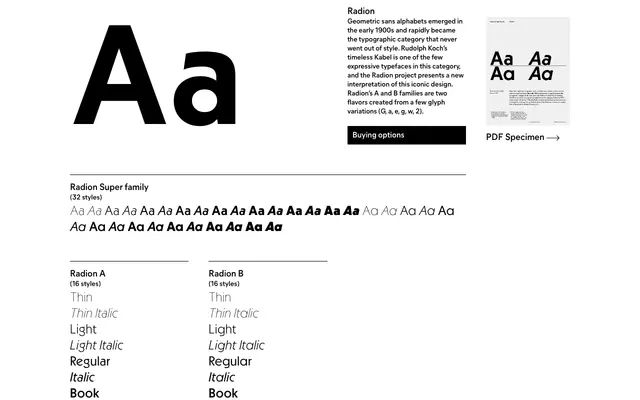
Radion specimen from General Type Studio
A 32-style geometric sans superfamily split into two subfamilies, each reinterpreting Rudolph Koch's Kabel through a small set of alternate glyphs.
Radion A and Radion B share the same weight range, from Thin to Black with italics throughout, but differ in a handful of key characters including the G, a, e, g, w and 2. The split gives designers two tonal registers from the same geometric skeleton, one closer to Koch's expressive originals, the other a contemporary recasting. OpenType features include titling alternates, oldstyle and tabular figures, and a slashed zero.
Radion is explicitly positioned within the geometric sans tradition, drawing on Rudolph Koch's Kabel as its primary reference. The characteristic single-storey alternates and geometric construction confirm the subcategory.